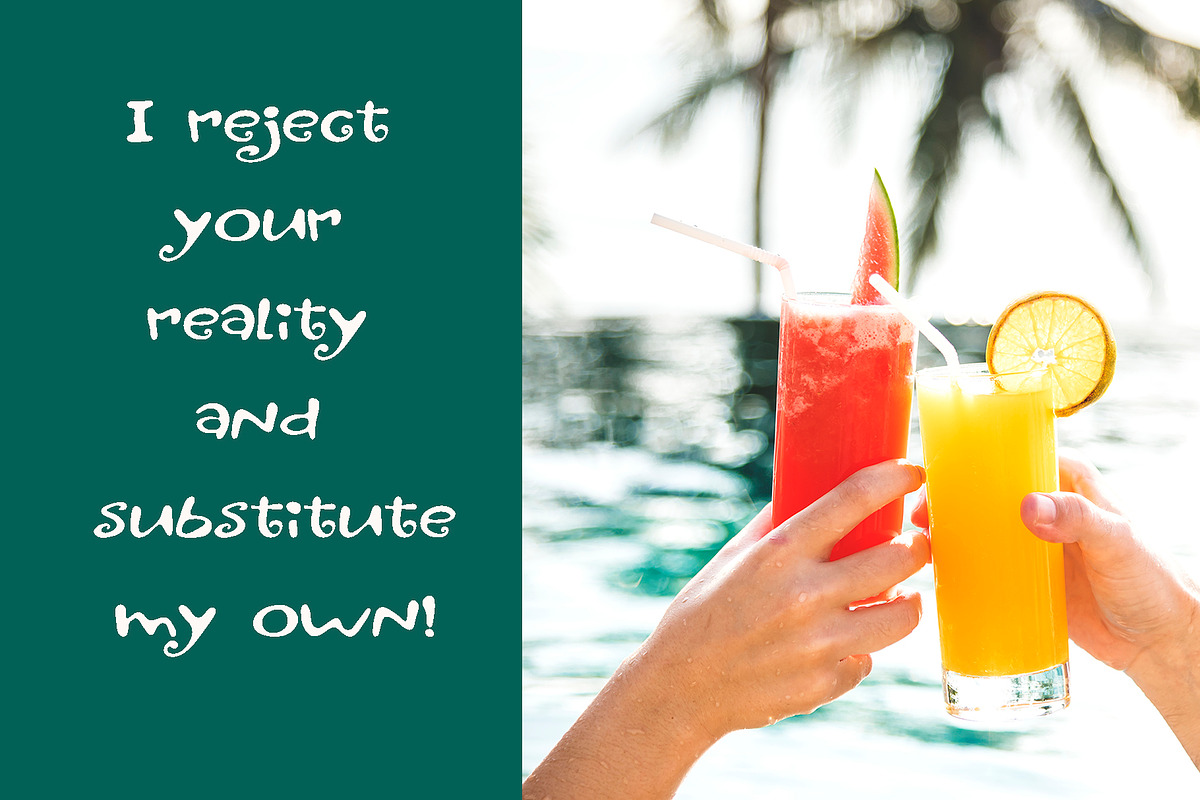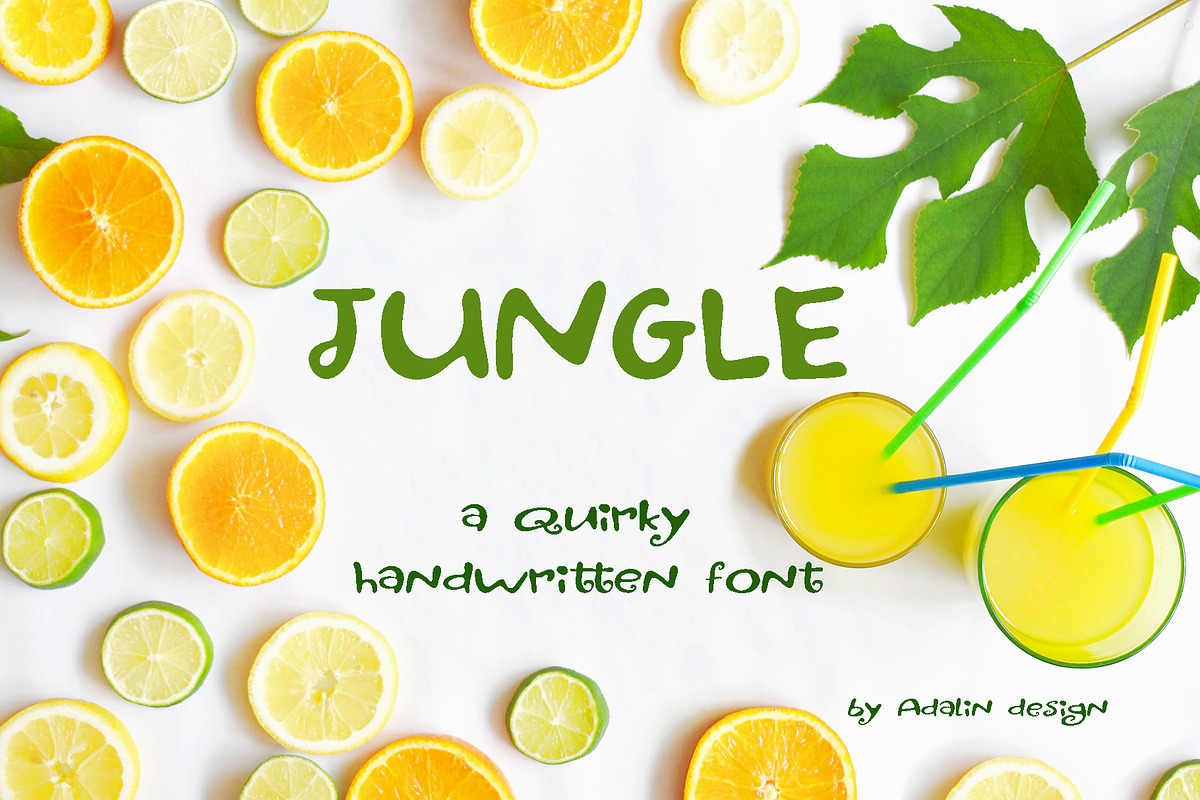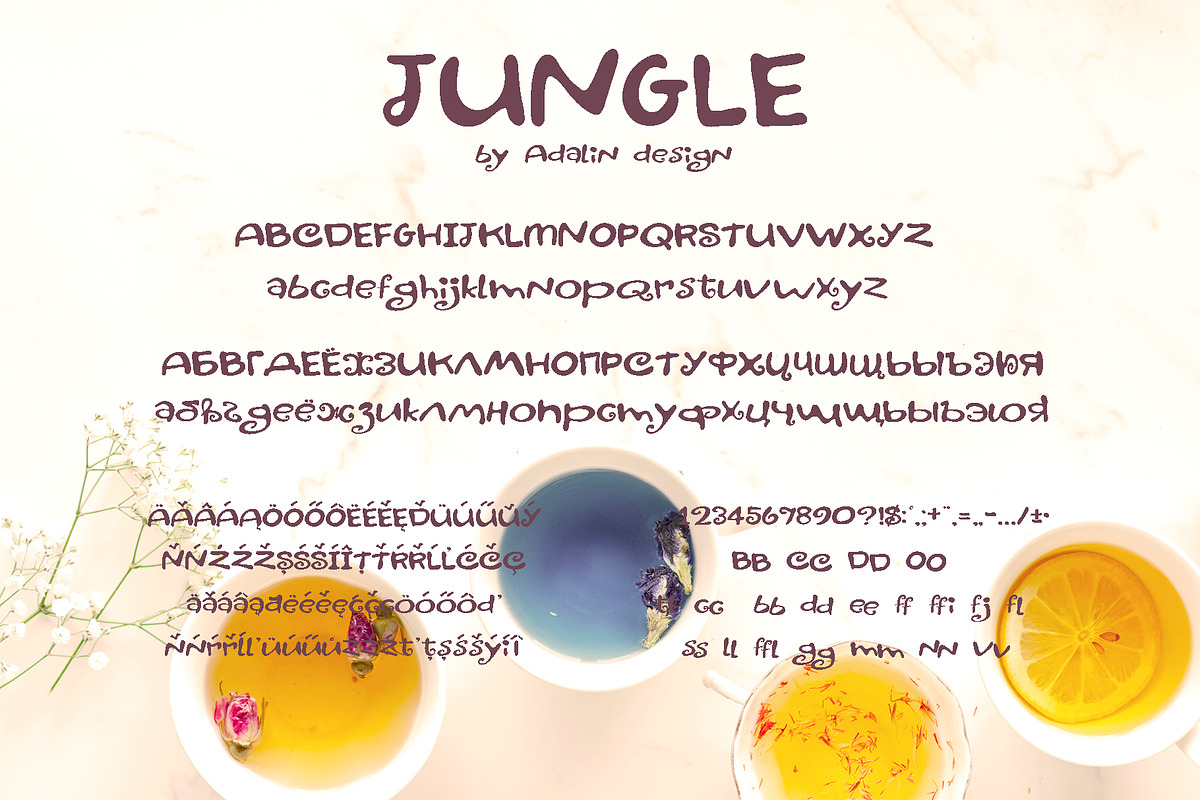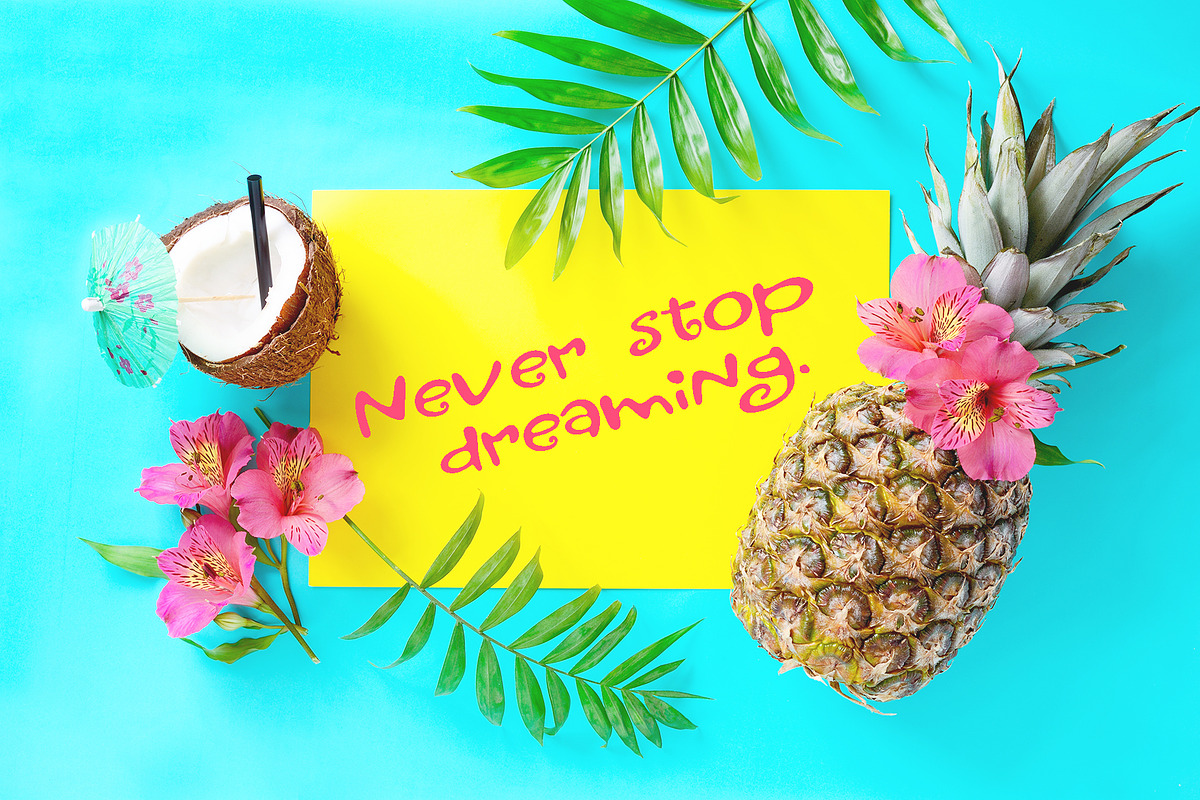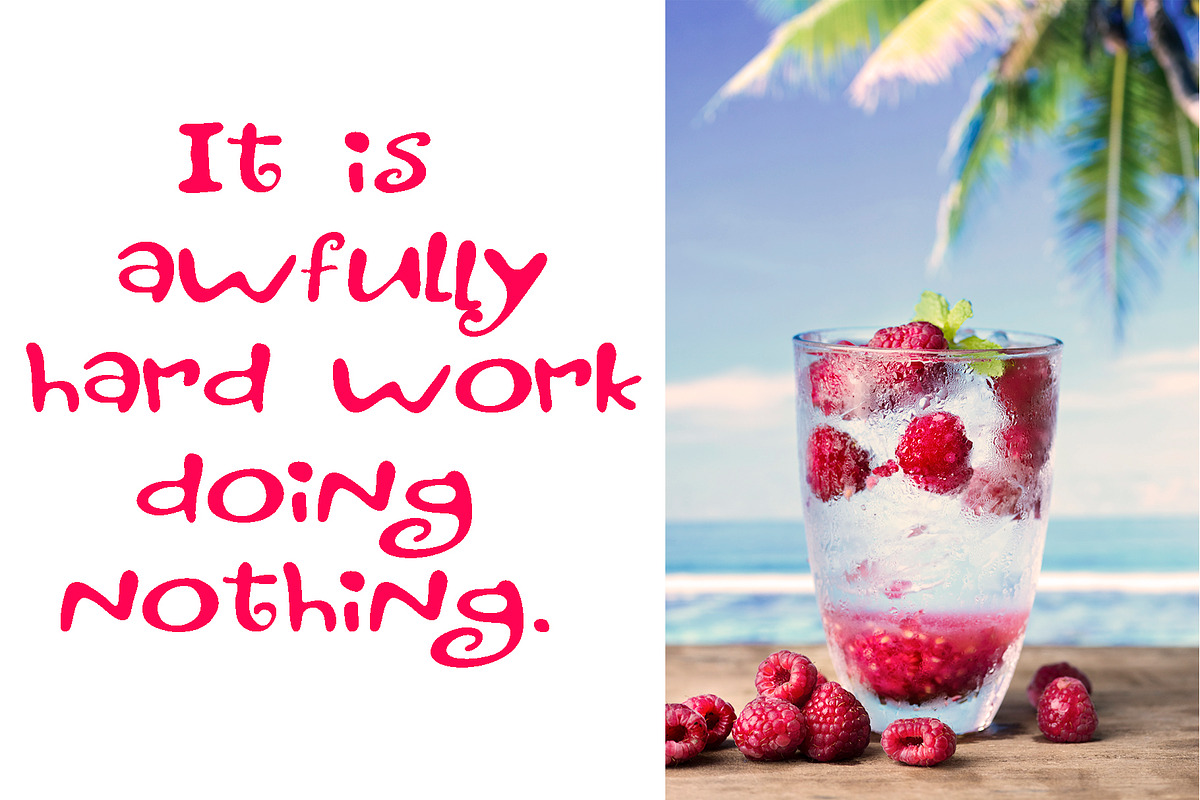
Fun handwritten font, Jungle
Jungle Handwritten Font is a delightfully, playful and modern handwriting font. The handmade style makes it ideal for use in all your project projects: be it logos, signatures, labels, package design, blog headings. Using Jungle will definitely make your text effects.
Jungle comes with basic and lowercase characters, numbers, signs and punctuation.Ligatures are also included to bring true authenticity to your design. It has multilingual support with accented characters for international users.
Which international languages does Jungle support? Jungle has accented and special characters that support the following languages : Basque, Bosnian, Catalan Cornish, Croatian, Czech, Danish, Dutch, Embu, English, Esperanto, Estonian, Faroese, Filipino, Finnish, French, Galician, German, Hungarian, Icelandic, Indonesian, Irish, Italian, Malay, Maltese, Manx, Maori, Meru, Morisyen, North Ndebele, Norwegian Bokmål, Norwegian Nynorsk, Nyankole, Oromo, Polish, Portuguese, Romansh, Serbian (Latin), Slovak, Slovenian, Spanish,Swedish, Swiss German.
Fun handwritten font, Jungle by Adalin fits naturally into Branding, posters, packaging, typography.